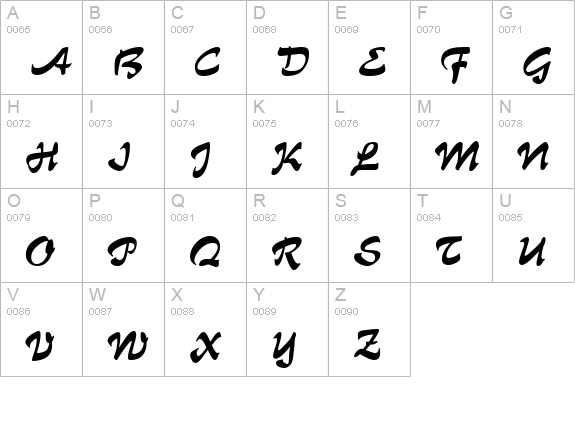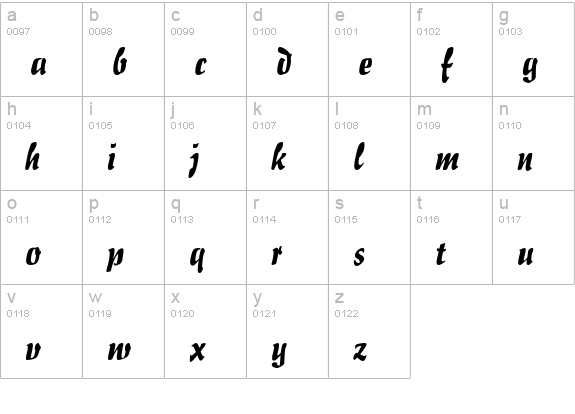
I770-Script-Regular Font Details
I770-Script-Regular is the standard, neutral variant in the I770 typeface family \xE2\x80\x94 well suited to general body text, paragraphs, and standard typographic work.
I770-Script-Regular is a beautifully crafted font that exudes elegance and sophistication. Its flowing and intricate script style adds a touch of class to any design project. This font is perfect for invitations, greeting cards, logos, and more. The best part about I770-Script-Regular is that it is completely free to download. You can easily get your hands on this stunning font by visiting FontsMarket.com. Take advantage of this amazing offer and enhance your designs with the timeless beauty of I770-Script-Regular.